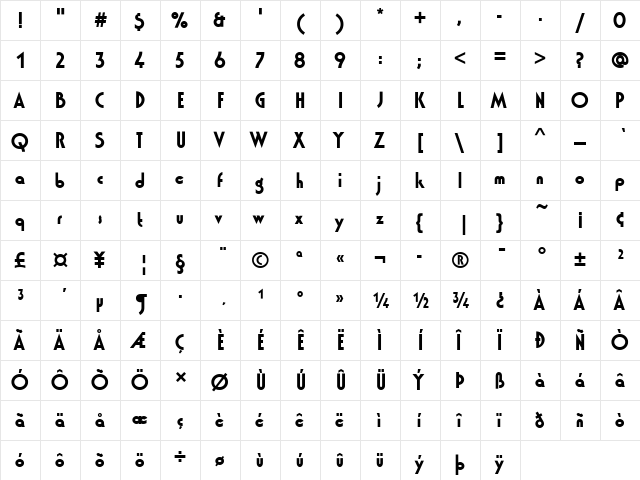
Washington D Bold
Design Context for Washington D Typeface
Washington D is a composed and adaptable typeface that performs quietly and consistently across a wide range of design contexts. Its bold stroke weight gives it real presence on the page.